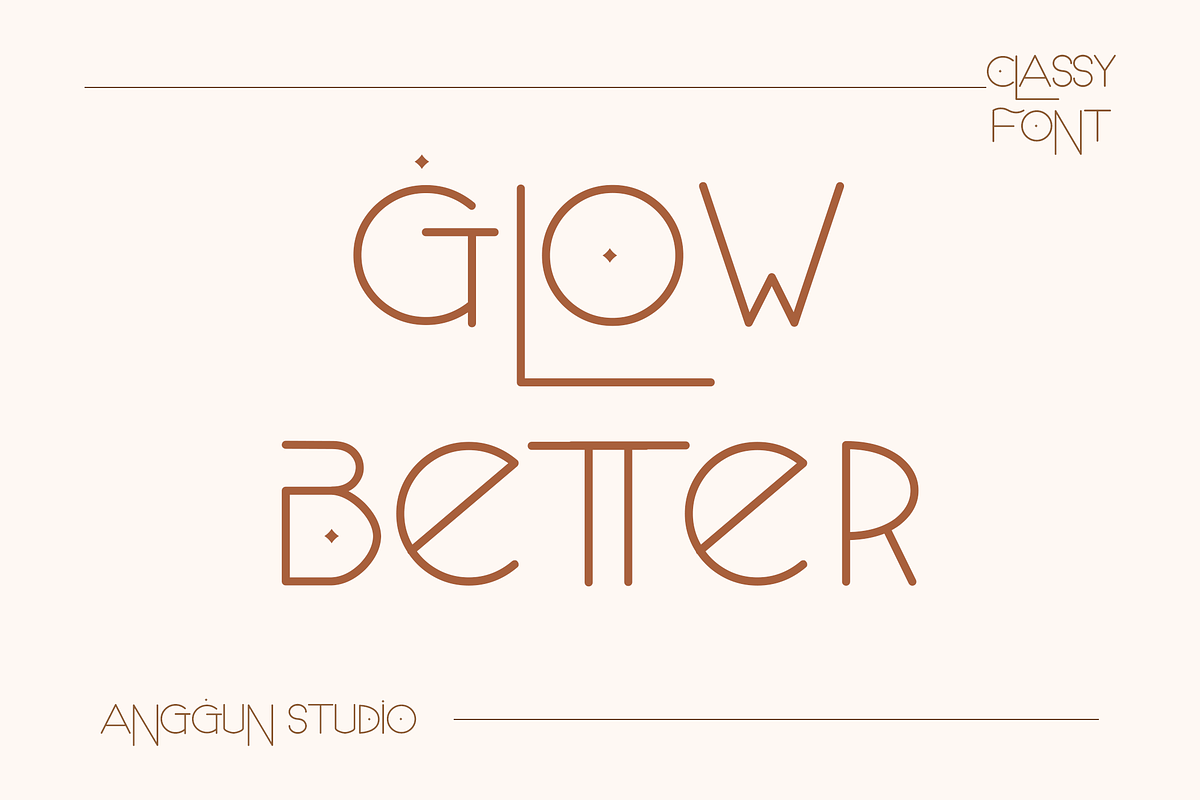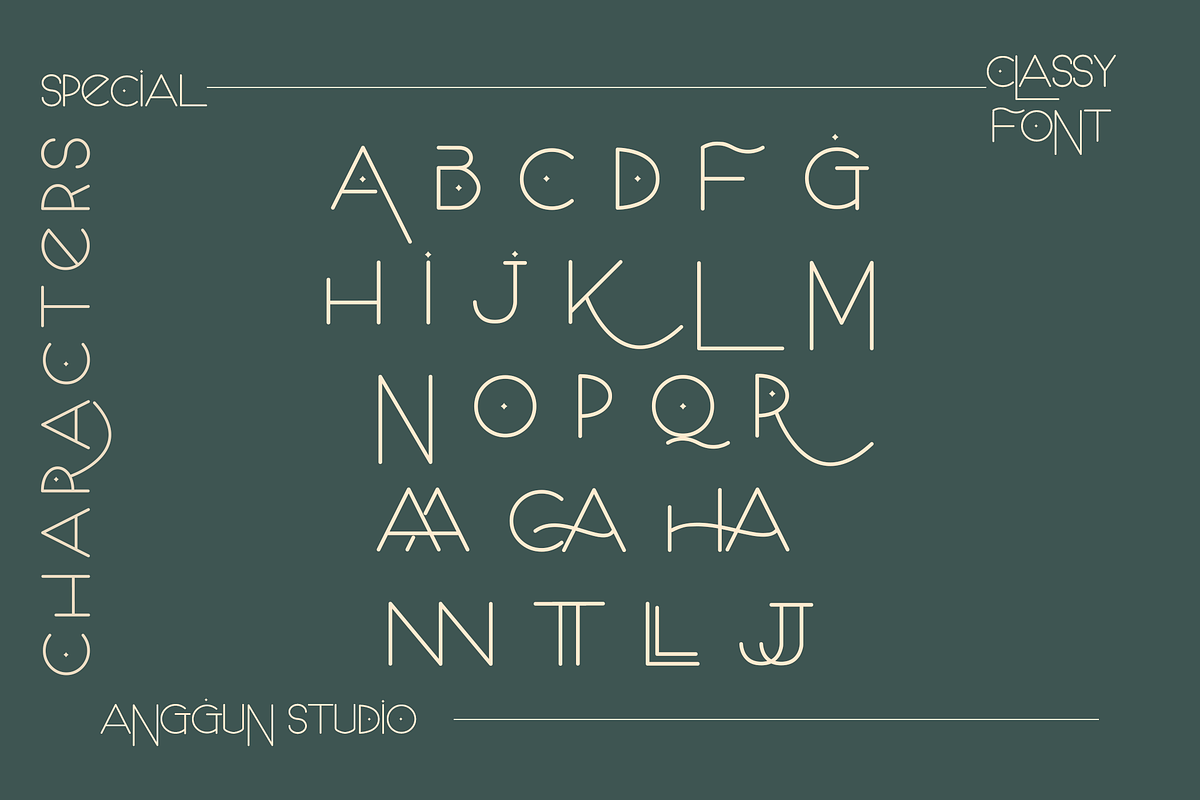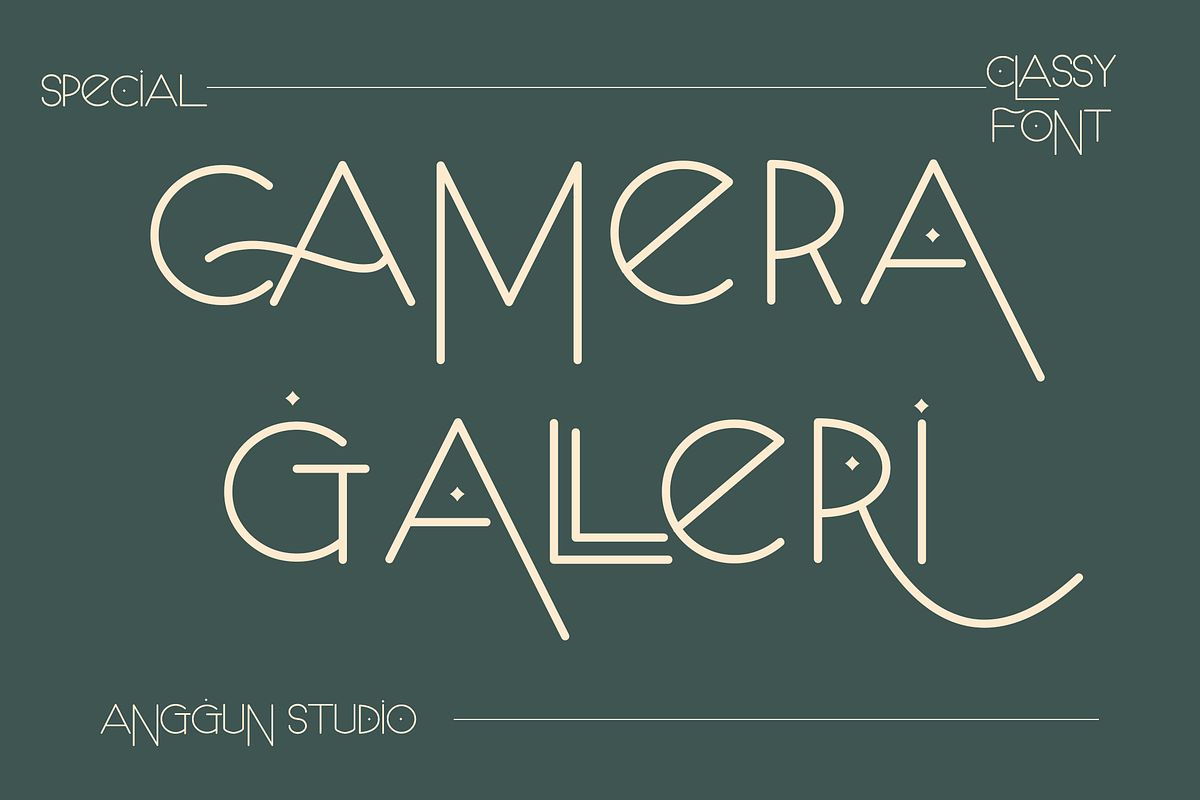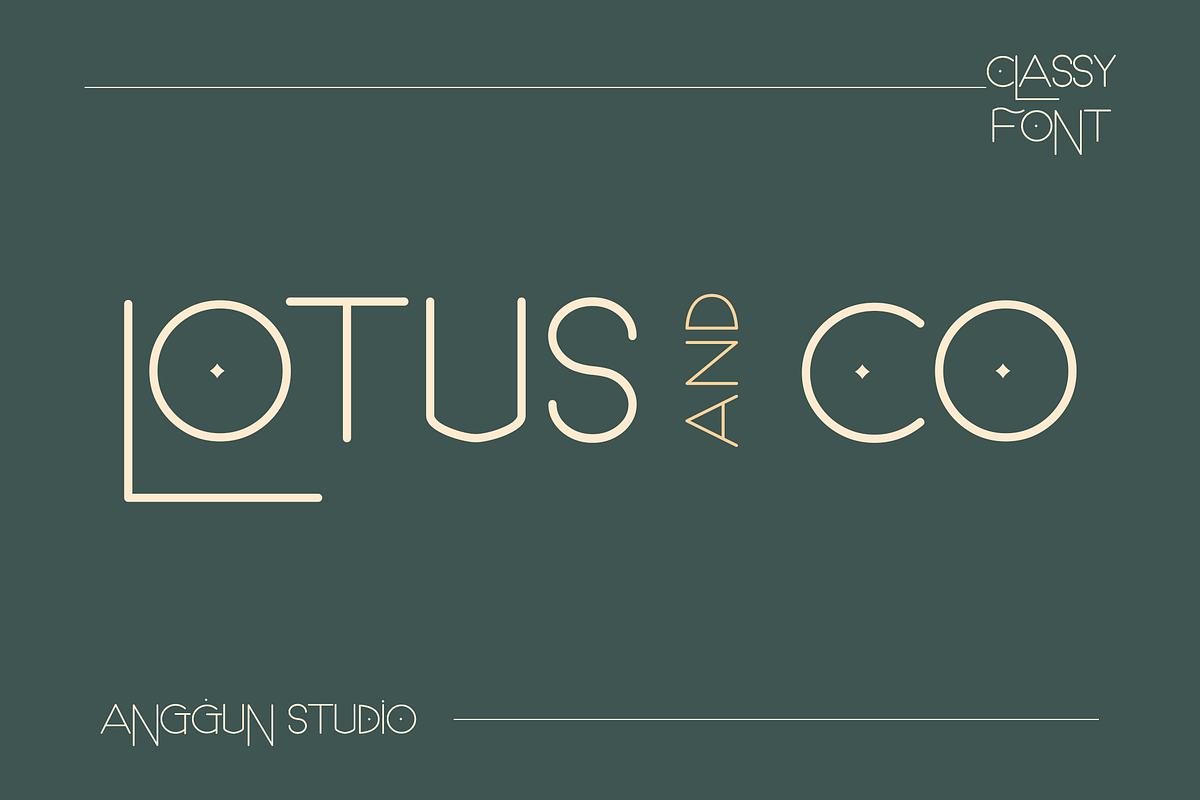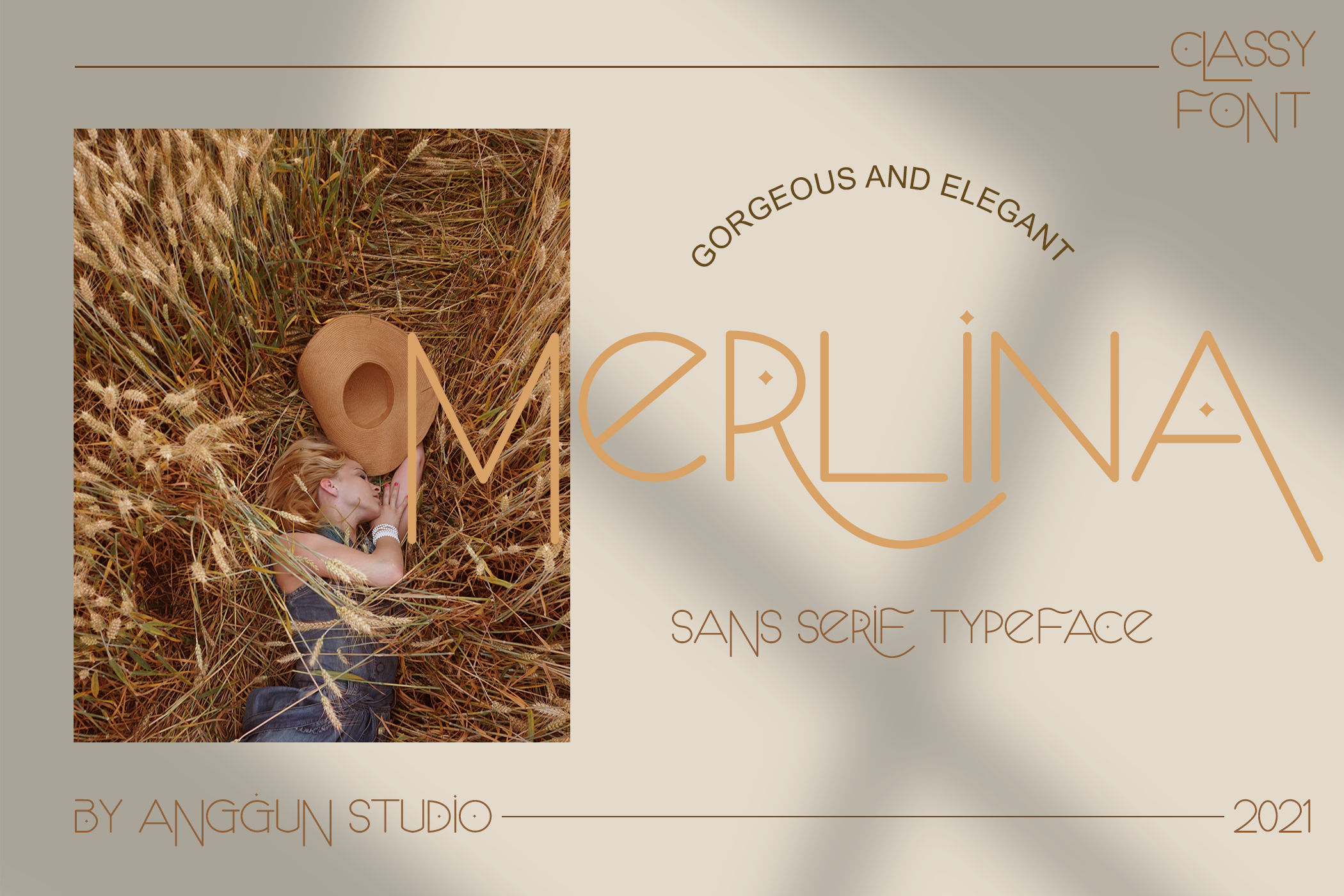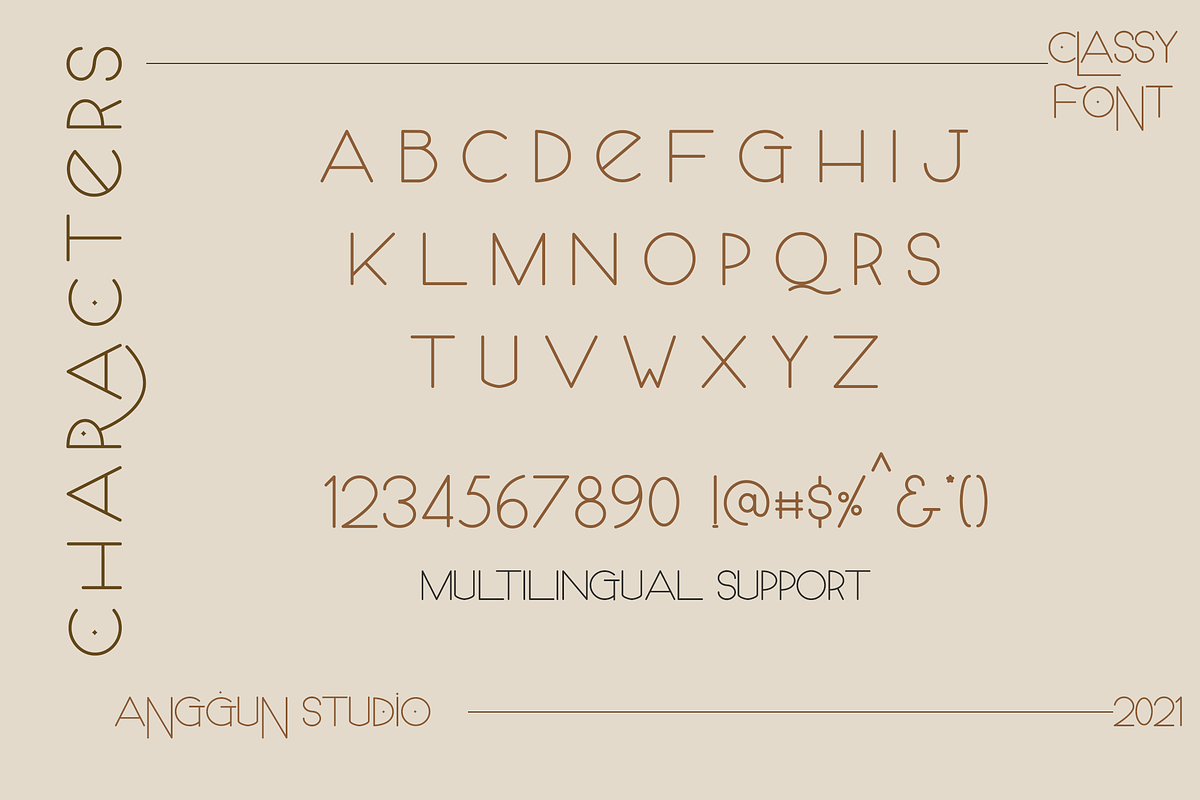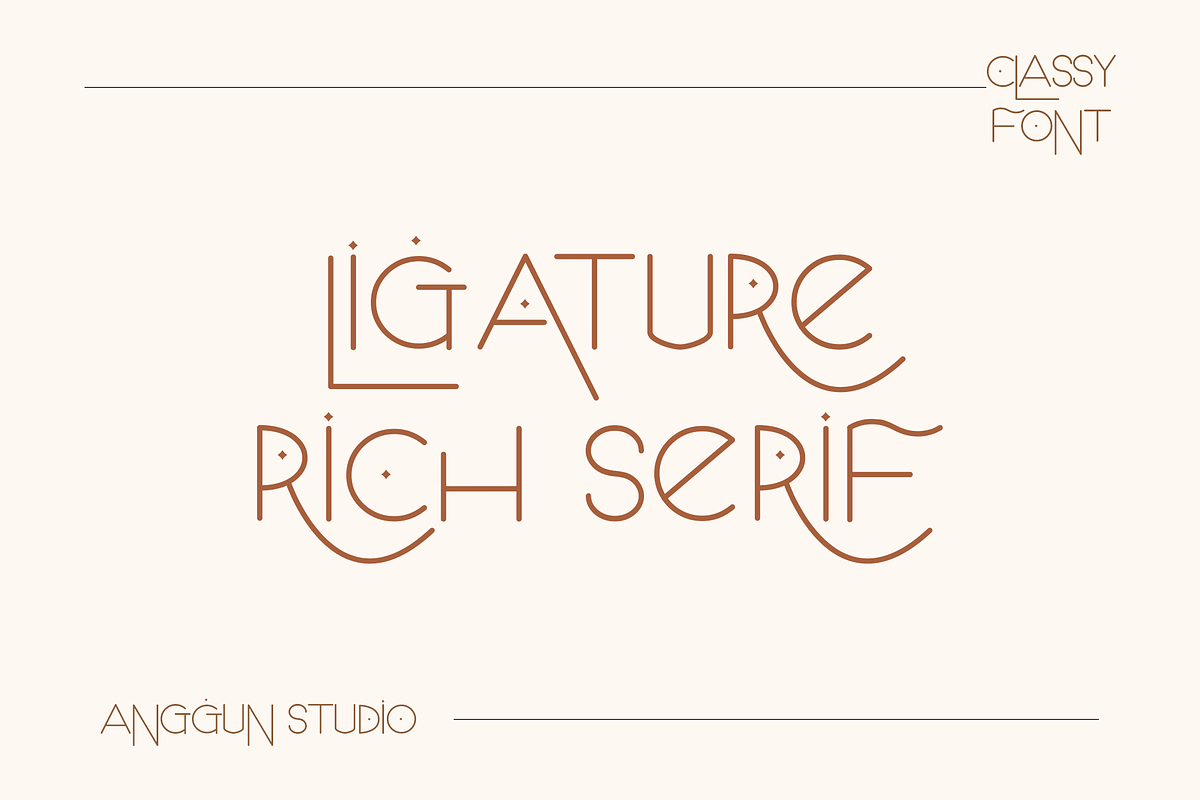
Merlina Font
Merlina is an elegant, thin lettered sans serif font. This font is PUA encoded which means you can access all of the glyphs and swashes with ease! Add it confidently to your favorite creations and let yourself be amazed by the outcome generated. ---OTF and TTF font versions ---Letters, numbers, punctuation, multilingual support. ---Italic and regular versions